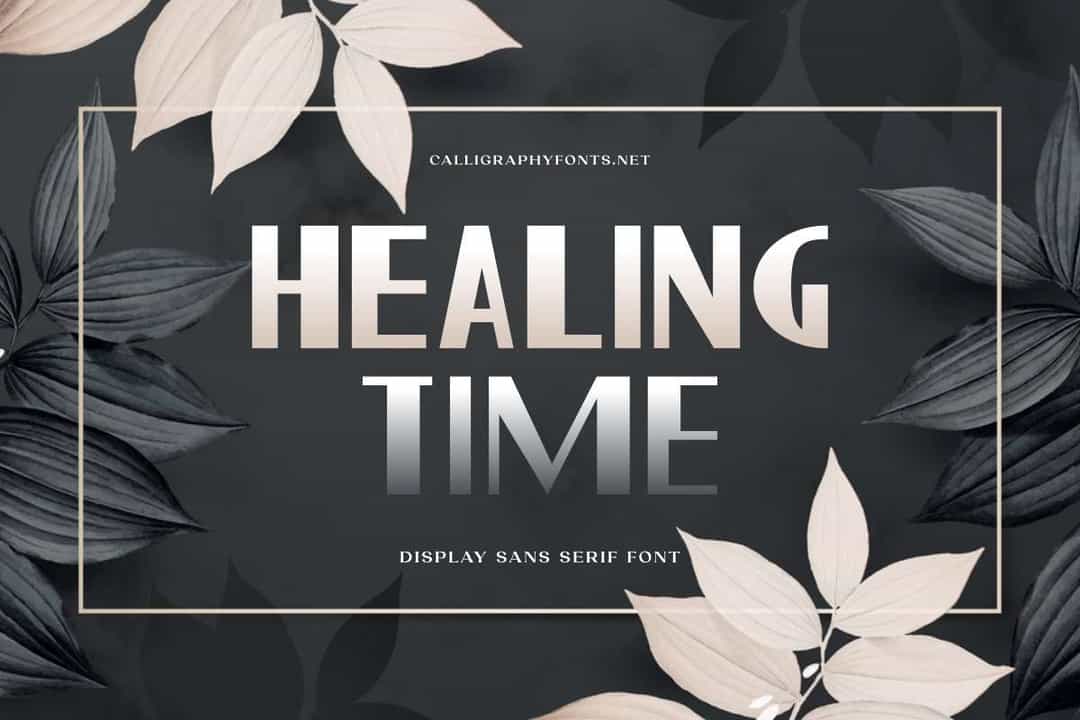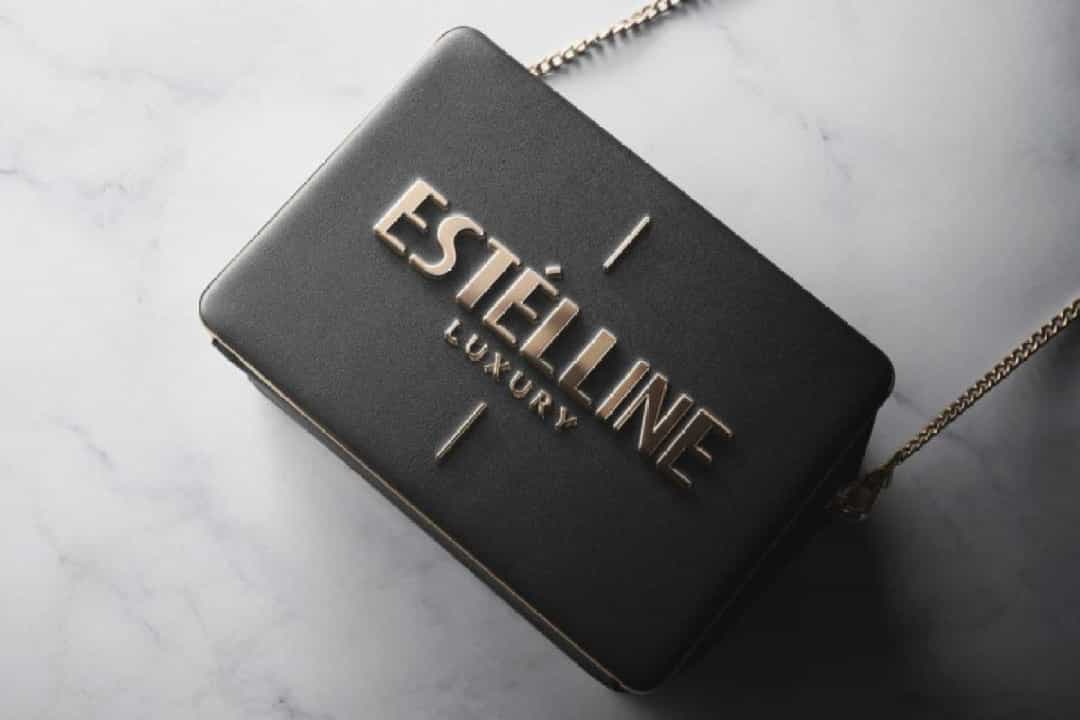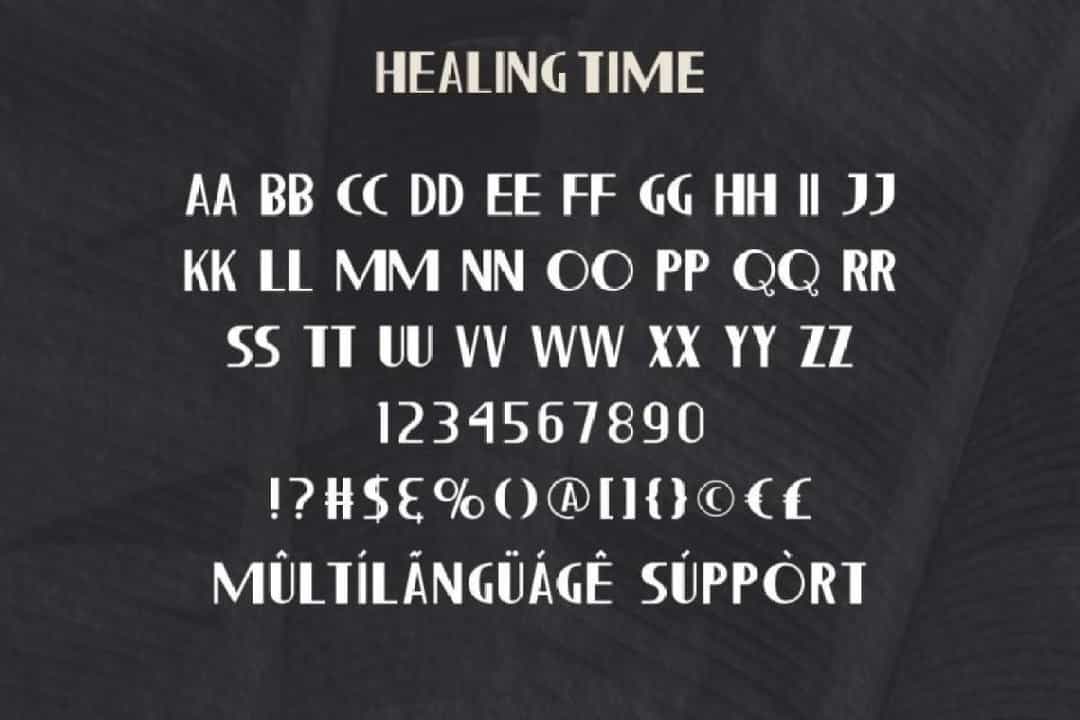
Healing Time Display Font by CalligraphyFonts is an eye-catching sans serif font designed for use with cafe signs, fashion magazine logos, wordmarks and any product or brand that exudes luxury. Healing Time Font comes in both bold and regular styles for even greater flexibility in application.